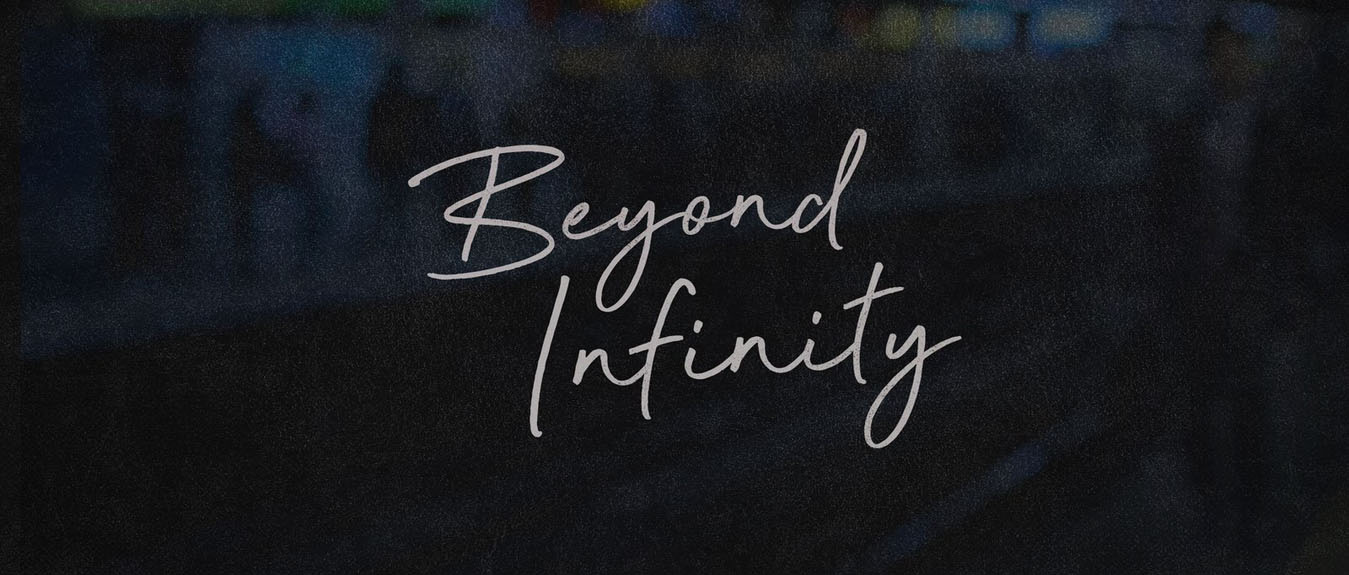
Beyond Infinity Font
Beyond Infinity Font excels in space exploration agency branding, quantum physics research presentations, science fiction movie titles, futuristic technology campaigns, cosmic philosophy publications, infinite possibility motivational materials, advanced mathematics visualizations, theoretical physics conferences, limitless potential coaching services, and transcendent spiritual center signage. This transcendent typeface brings cosmic consciousness and infinite possibility to any boundary-breaking design project.
Beyond Infinity Font is exciting because it embodies the mind-expanding concept of limitless possibility and the awe-inspiring vastness that exists beyond conventional understanding, featuring expansive letterforms that seem to stretch toward infinite horizons and capture the boundless potential that emerges when we transcend traditional limitations. Its cosmic character instantly conveys unlimited potential, universal consciousness, and the transformative power of thinking beyond boundaries.
Beyond Infinity Font family includes Ultra Light, Light, Regular, Medium, Bold, and Black weights with cosmic alternates, infinite flourishes, transcendent ornamental elements, and limitless symbols that enhance the boundless aesthetic, providing visionary designers with expansive tools for creating typography that celebrates infinite possibility and universal consciousness.
Cosmic consciousness designers appreciate Beyond Infinity Font for its exceptional ability to convey limitless potential and universal awareness through expansively crafted letterforms. The font's transcendent character and cosmic details create immediate associations with space exploration, quantum possibilities, and the profound realization that consciousness and possibility extend far beyond conventional boundaries and terrestrial limitations.
The design philosophy behind Beyond Infinity Font celebrates the human capacity to transcend limitations and explore the infinite possibilities that exist when we expand our consciousness beyond conventional thinking, making it particularly effective for research institutions, spiritual organizations, and visionary brands that encourage people to think beyond boundaries. Innovation teams working on breakthrough projects find this font essential.
Whether used for space exploration missions, consciousness research centers, or limitless potential development programs, Beyond Infinity Font delivers the perfect synthesis of cosmic awareness and infinite possibility. Its transcendent appeal and universal consciousness make it an indispensable choice for organizations that explore the frontiers of knowledge, promote limitless thinking, and celebrate the infinite potential that exists beyond conventional boundaries.